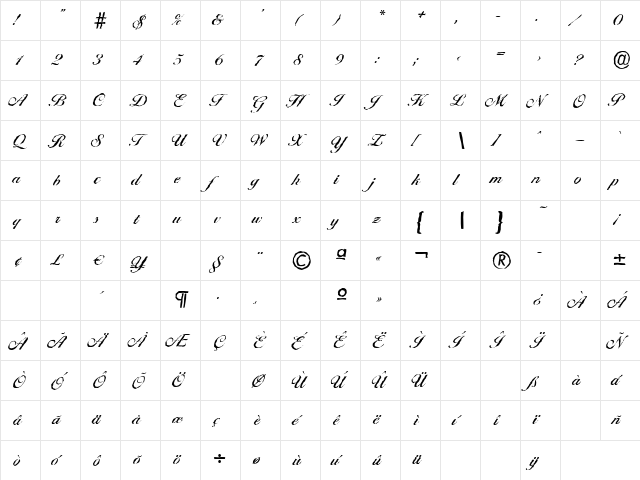
BallantinesAntique-Medium Regular Font Preview
BallantinesAntique-Medium Regular
BallantinesAntique-Medium Regular Font Details
Design Context for BallantinesAntique-Medium Typeface
BallantinesAntique-Medium has the warm character of retro typography — evoking diners, record sleeves, and the golden age of print advertising.
Font Pairing: Combine BallantinesAntique-Medium with a simple slab or neutral sans — period-accurate companions reinforce the vintage feel without competing for attention.
Pro Tip: Use BallantinesAntique-Medium for headlines and pull quotes rather than body copy — its personality is best appreciated in short, focused bursts.